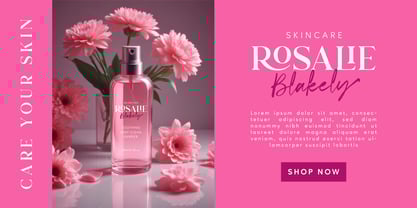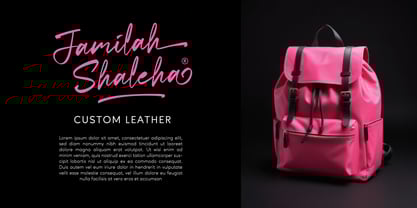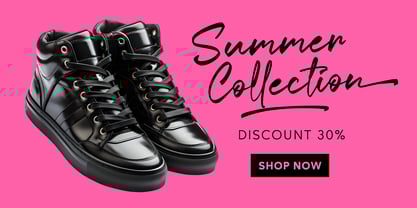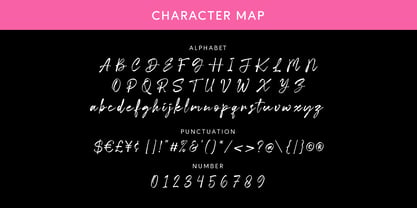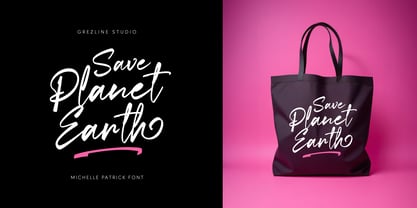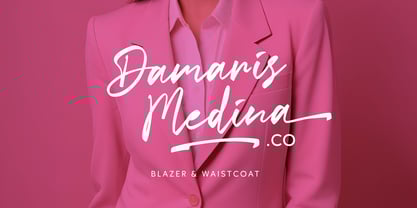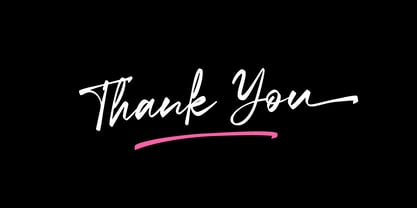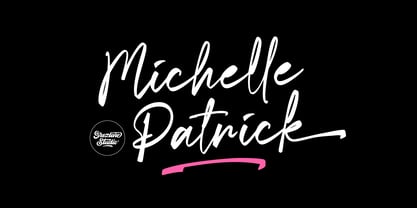
Michelle Patrick
von Grezline Studio
Die Schriftfamilie Michelle Patrick wurde von Akhmad Reza Fauzi entworfen und von Grezline Studio veröffentlicht. Michelle Patrick enthält 1 Stile. Mehr über diese Familie
Introducing my newest font called Michelle Patrick, a handwritten script font. Imagine your words flowing like a brushstroke on a canvas, each letter dancing with elegance and personality. Whether you're crafting a heartfelt invitation, designing a brand that speaks to the soul, or simply adding a touch of artistry to your everyday projects, Michelle Patrick font is your fashionably creative companion.
Feature :
- Alternate and Ligature
- Multilingual Language
Designer: Akhmad Reza Fauzi
Foundry: Grezline Studio